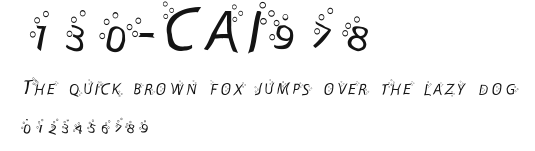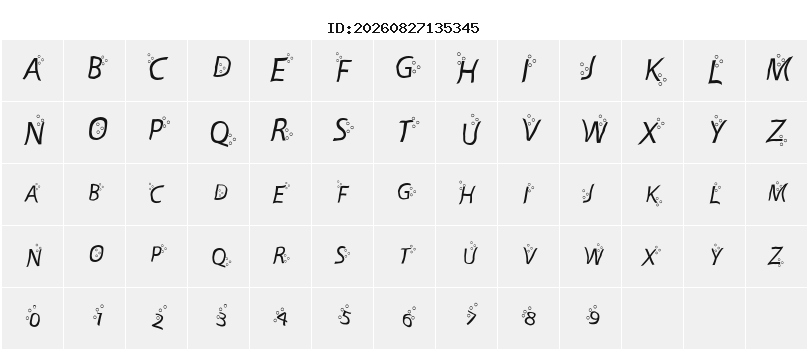
130-CAI978 Preview
• Font Name: 130-CAI978
• Full Font Name: 130-CAI978
About 130-CAI978.ttf
130-CAI978.ttf is a modern, elegant sans-serif font designed for ultimate readability and visual harmony. Perfect for branding, headlines, web design, and print materials.